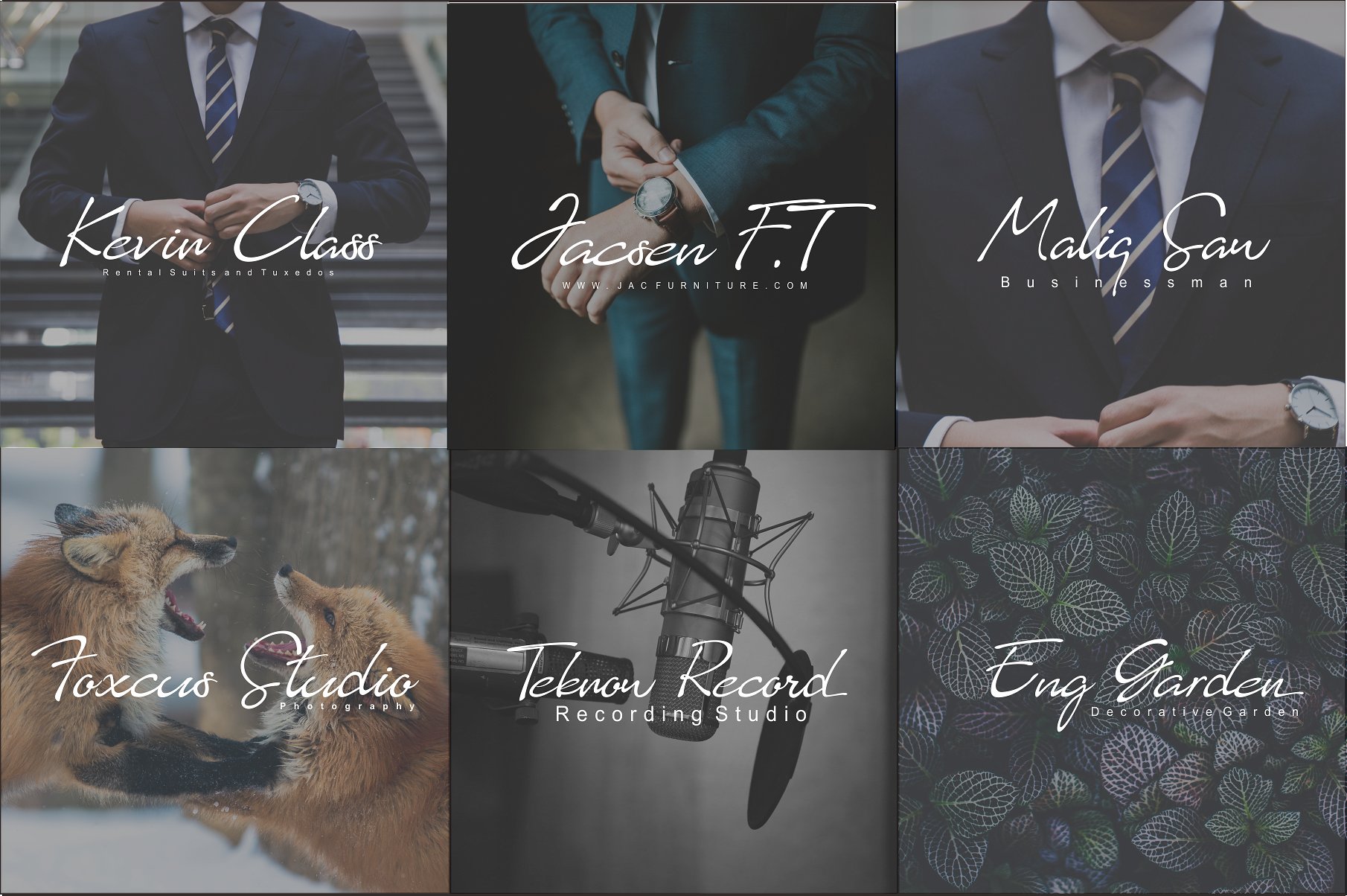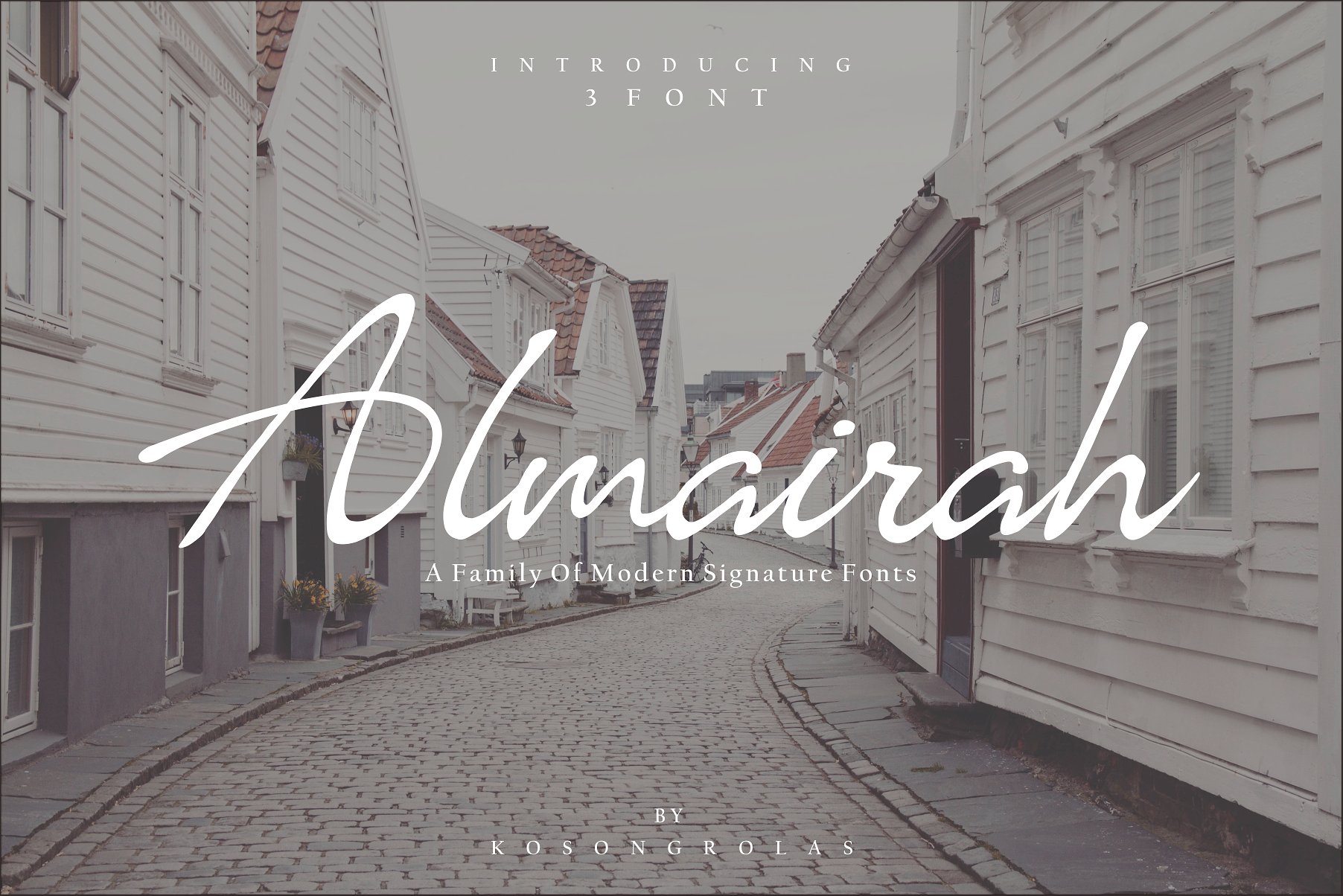
Almairah Script
Almairah Script Font
Introducing Almairah Family Font, a classy signature font and there are three styling options. With freestyle flowing fonts this script looks elegant, classy, ​​easy to read, stylish, beautiful and easy to use.